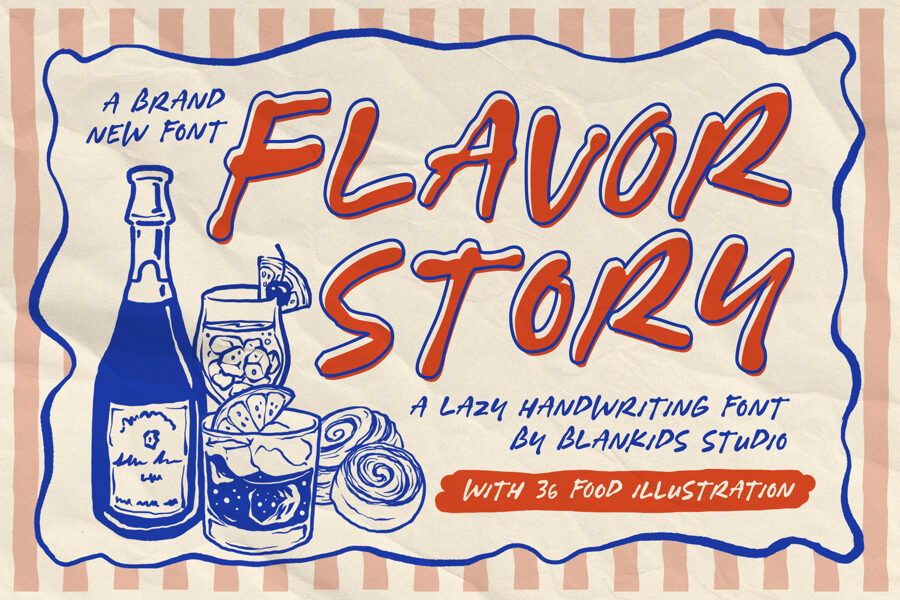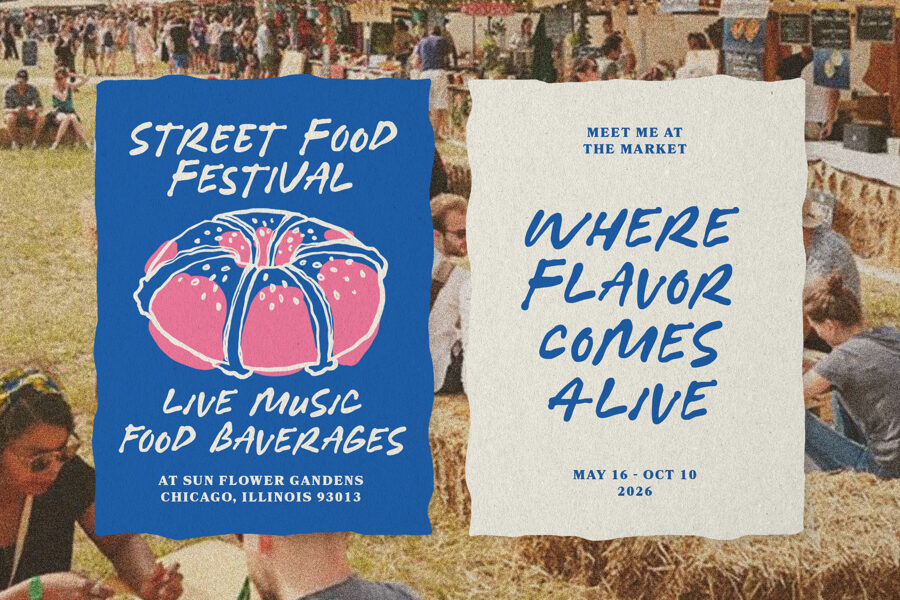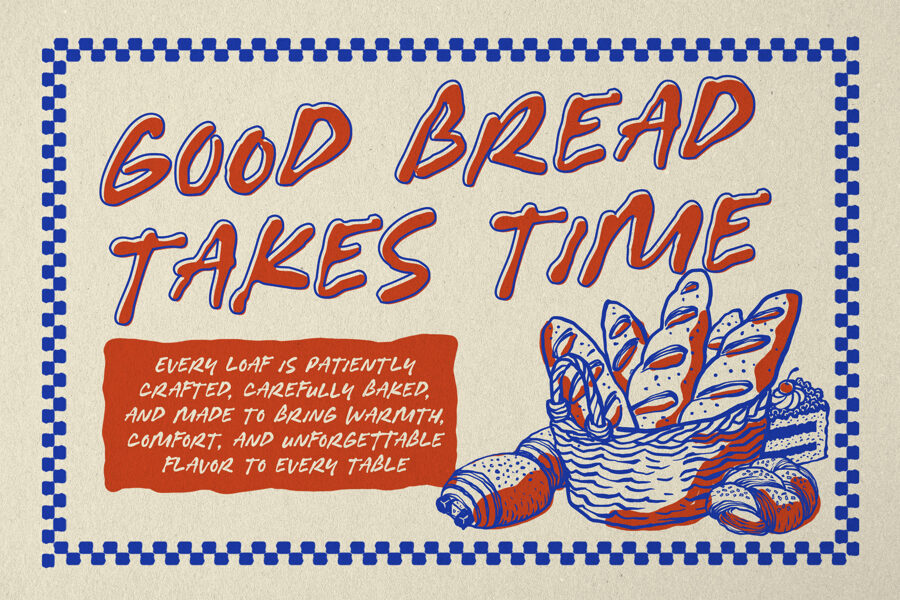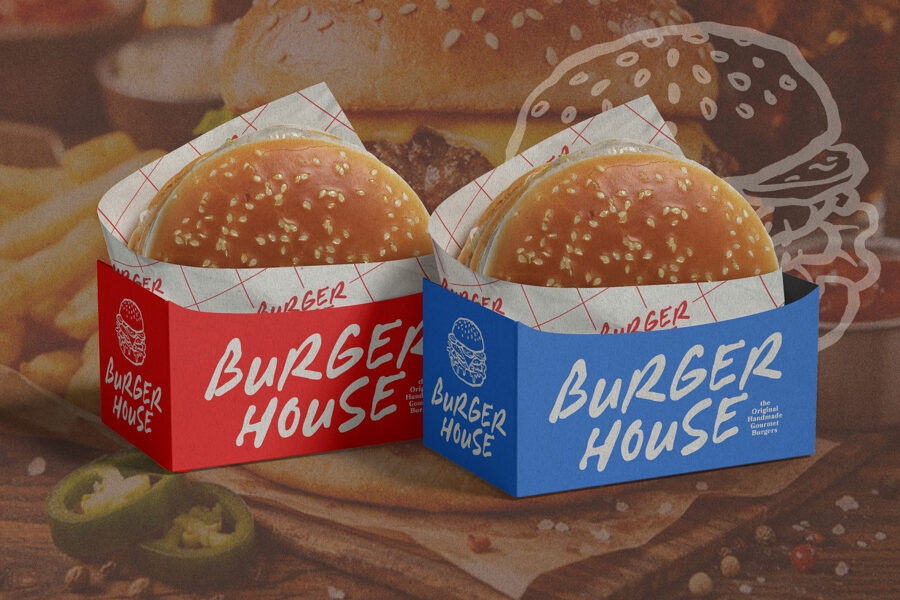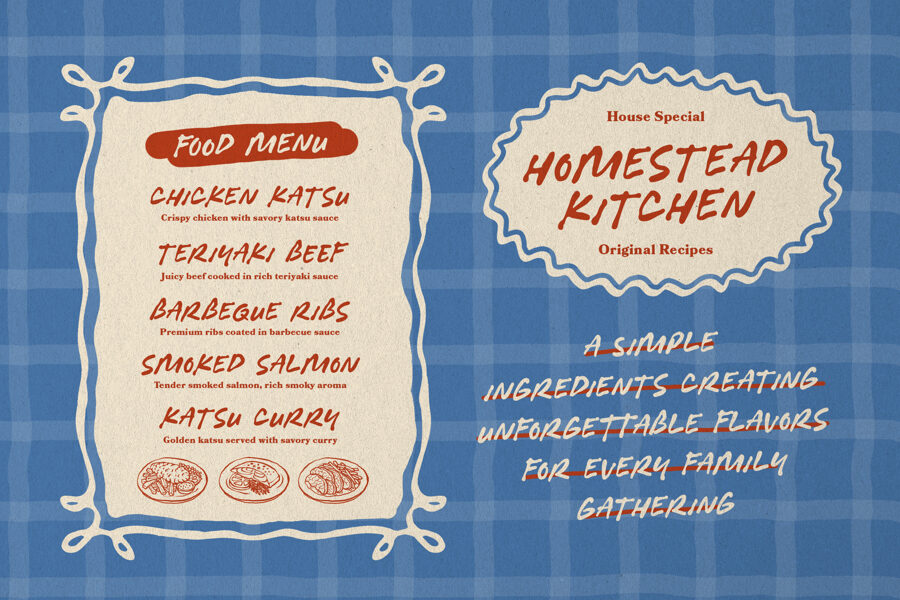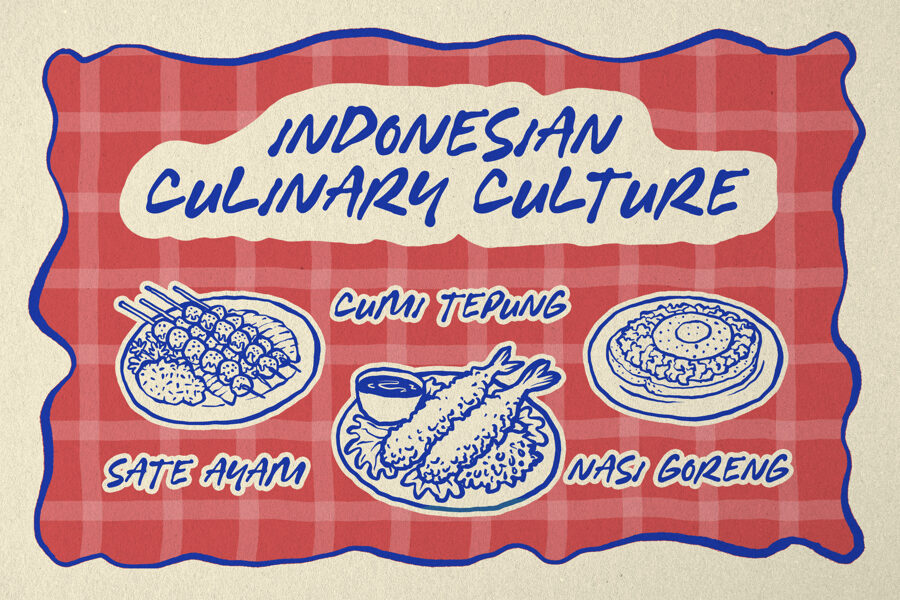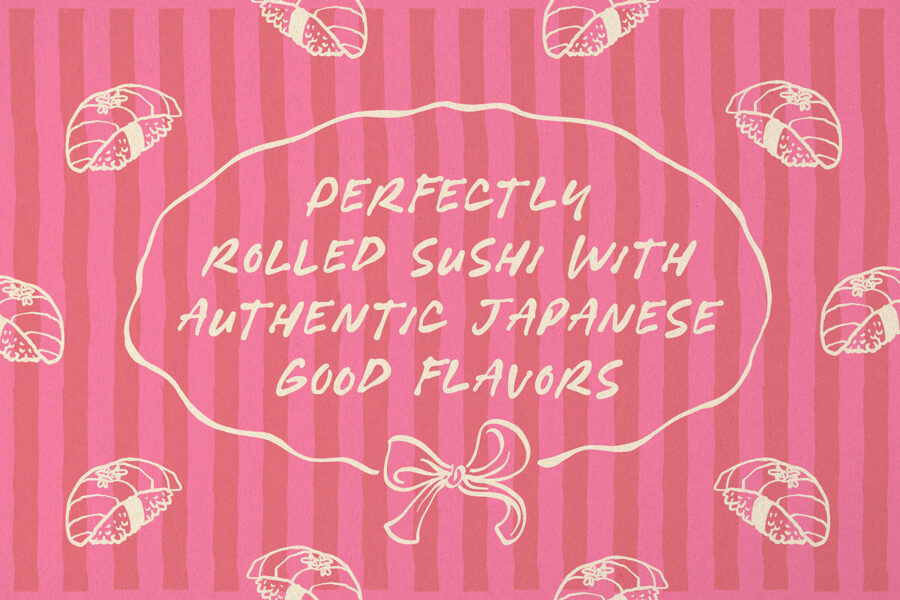
Flavor Story Font Family
Flavor Story is a playful handwritten display font inspired by the warmth of homemade recipes, neighborhood bakeries, cozy cafés, and vibrant street food culture. Whether you’re creating restaurant branding, café menus, artisan packaging, food festival posters, bakery labels, social media graphics, or lifestyle merchandise, Flavor Story delivers a friendly, inviting look that feels fresh, expressive, and full of flavor.
To make your designs even more delightful, Flavor Story also includes 36 hand-drawn food illustrations, perfectly complementing the font for creating eye-catching compositions without needing additional graphic assets.